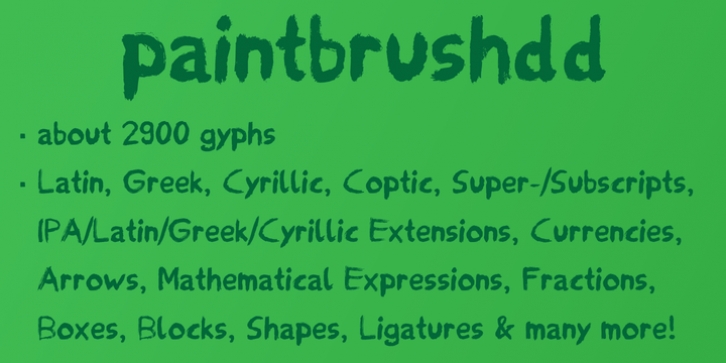
paintbrushdd was designed by Matthias Luh and published by Matthias Luh. paintbrushdd contains 4 styles and family package options.
aintbrushdd was created using a real paintbrush. It is available in 4 styles including almost 3000 characters (Latin, Greek, Cyrillic, Coptic, symbols, shapes, mathematical expressions and so on). The main focus is on authenticity: The font literally looks like someone just painted it onto your artwork with a paintbrush! Just to name some examples, it is recommended for headlines, posters, t-shirts, computer graphics, and for any other purpose that need less than about 1000 words (due to the complexity of the font and the brush details).